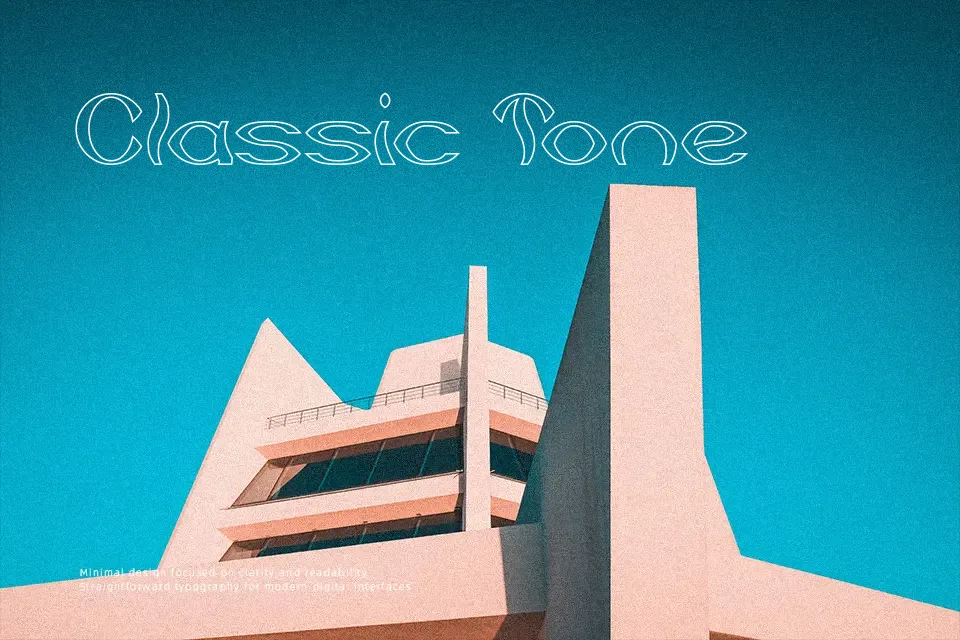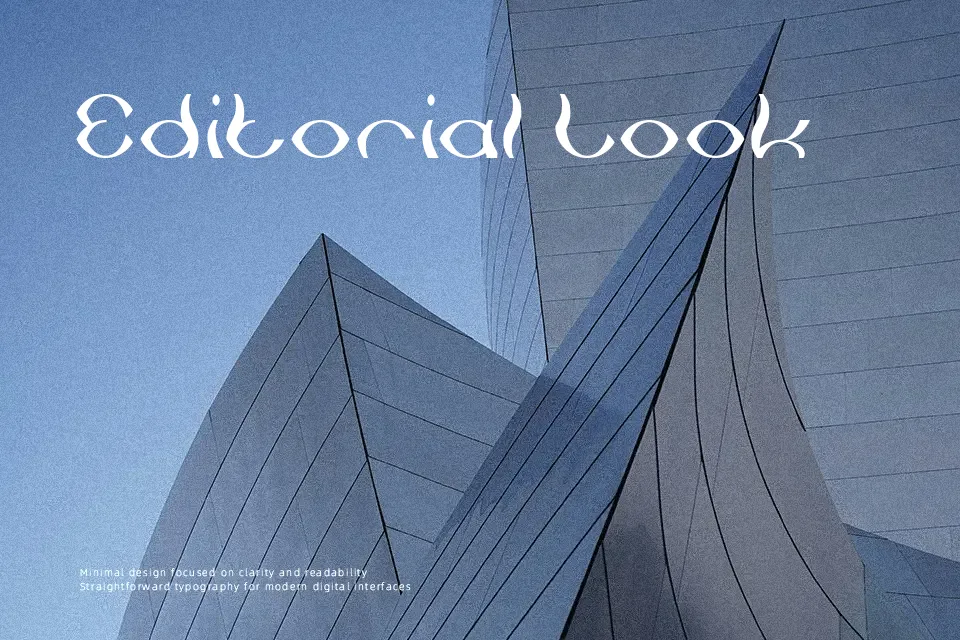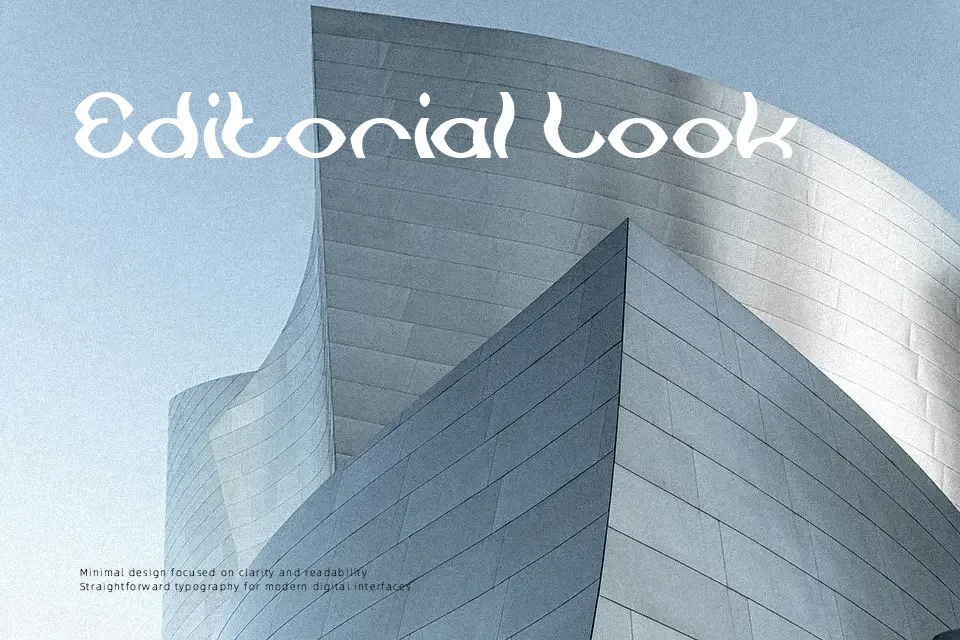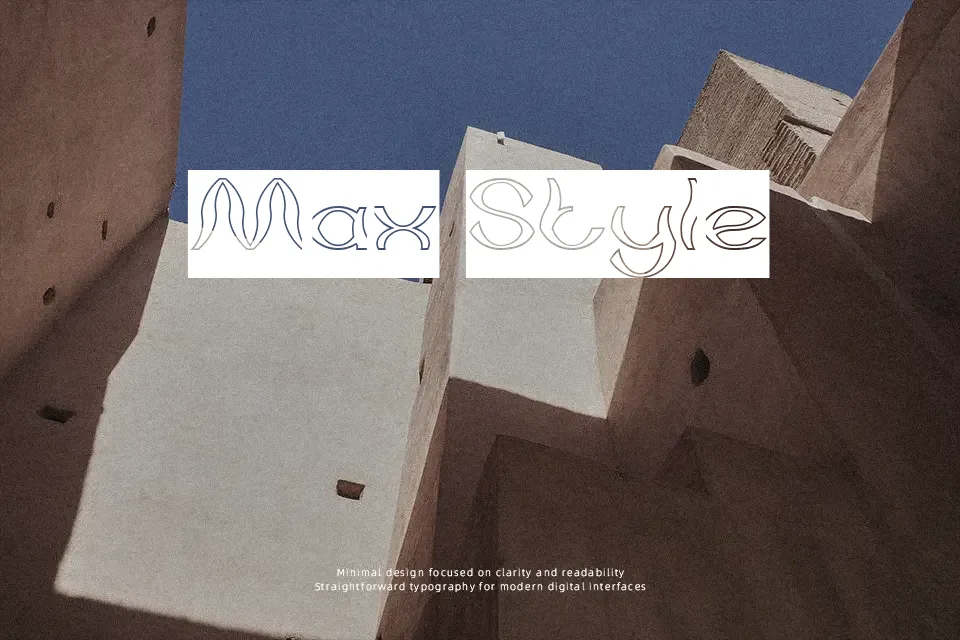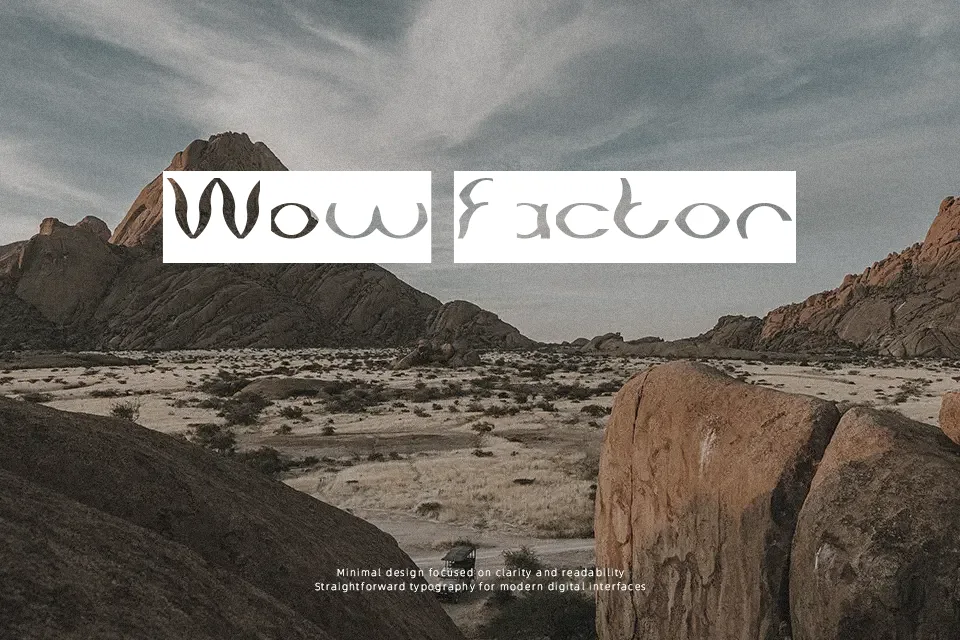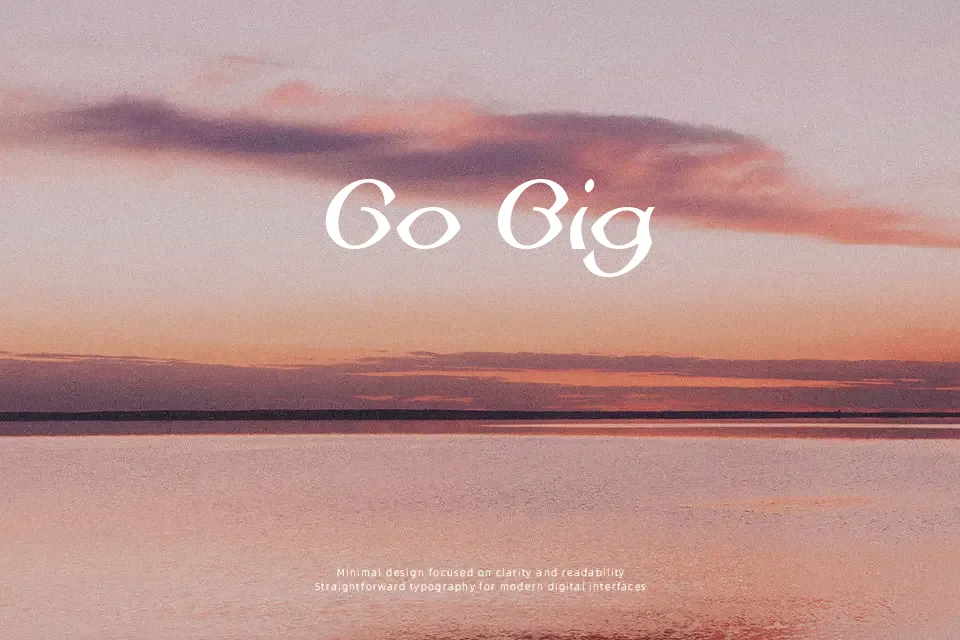
Psychedelic Font
Designed by weknow
Psychedelic Font commands attention with fluid, distorted letterforms that capture the unmistakable energy of retro design. The strokes feature exaggerated curves and an organic rhythm, giving the typography a sense of continuous motion. With varying character widths and unconventional proportions, the spacing feels uniquely dynamic. This expressive display structure makes it highly effective for music album covers, striking event posters, and nostalgic apparel branding. However, the heavy stylization creates a significant limitation for standard readability. The wavy letterforms become difficult to decipher at smaller scales, making this typeface unsuitable for long paragraphs or dense layouts. Ultimately, the vibrant distortion serves best in large headline formats where pure visual impact outweighs quick legibility.
vintage music festival posters
groovy apparel graphics
creative album cover art
retro event branding
Perfect for fashion, headline, and logo, with a artistic and decorative style.